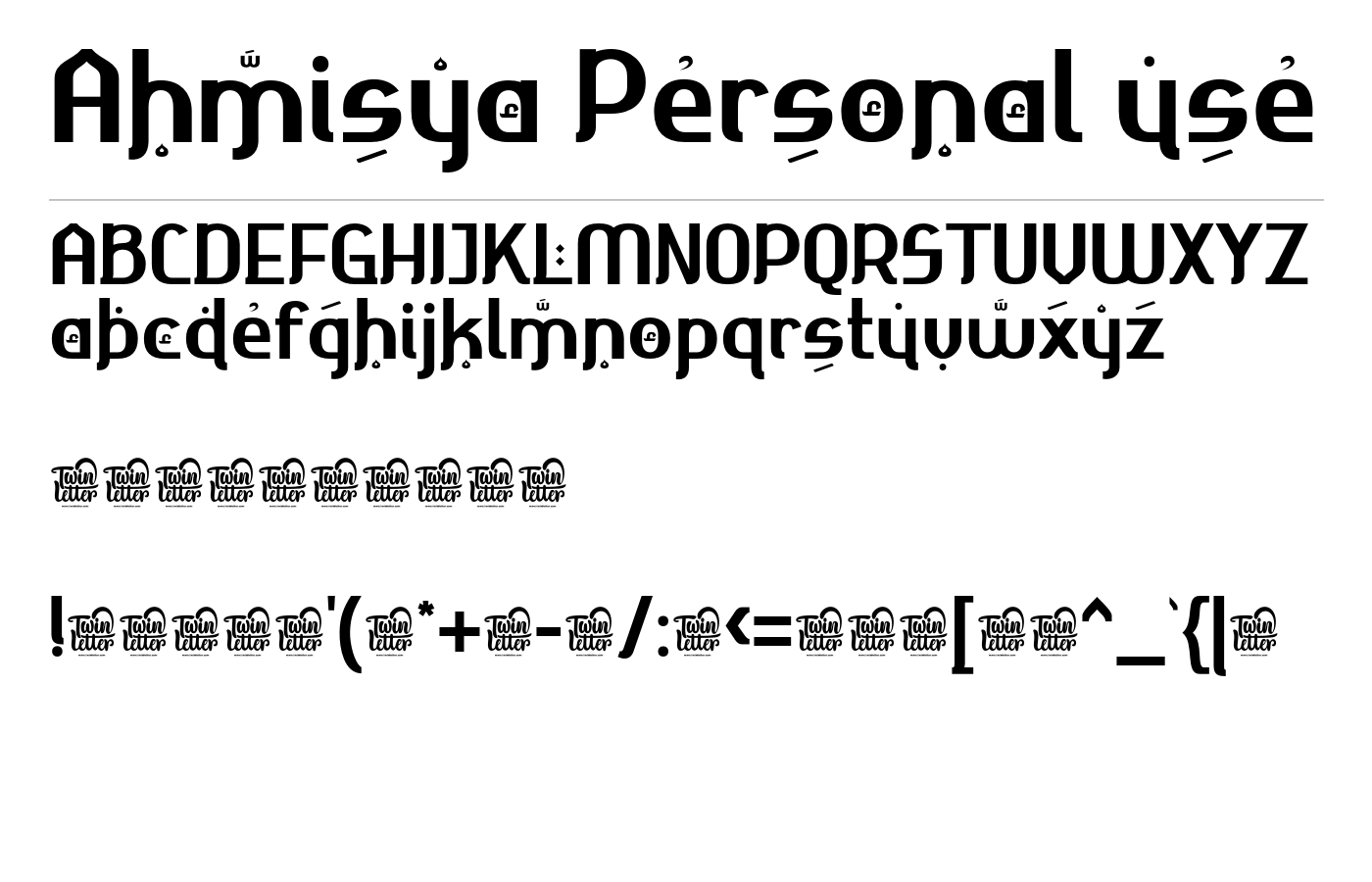
Ahmisya Personal Use is a unique sans serif font that blends geometric precision with playful, decorative details in its letterforms. It features a medium weight and normal width, with distinctive curved strokes and raised accents that give it an artistic, modern vibe. This font works well for creative branding, headlines, and distinctive design projects where a quirky yet structured look is desired.
Ahmisya Personal use Font
About Ahmisya Personal use Font